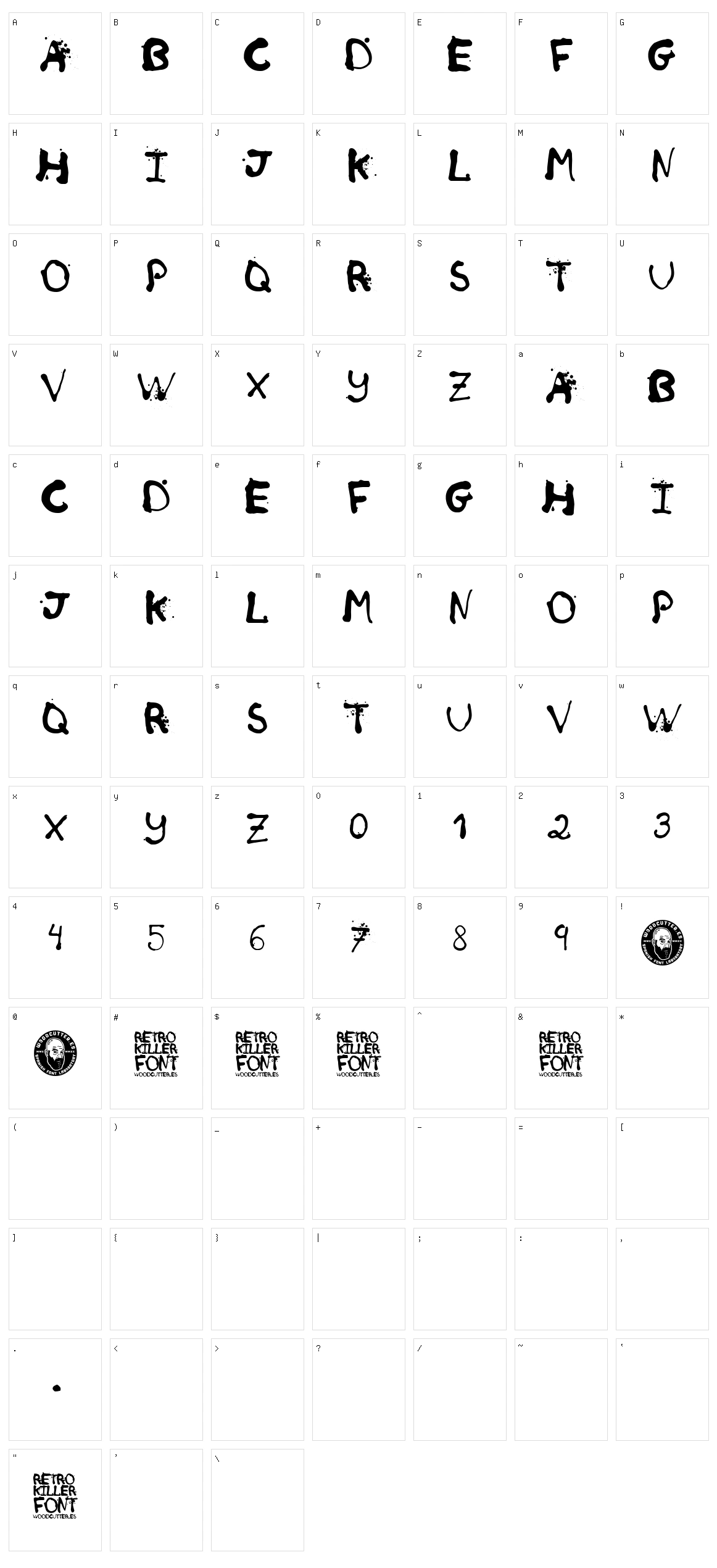
The free font Retro Killer is carefully designed by Woodcutter, showcasing a thoughtful balance of creativity and usability and falls under the Horror font style. When you download the ZIP file, it contains only 109.41 KB of font files, making it lightweight and quick to download. Please review the license details below to understand permitted usage and distribution rights. If license information is not available, we recommend using this font for personal projects only or contacting the author directly for commercial usage permissions.